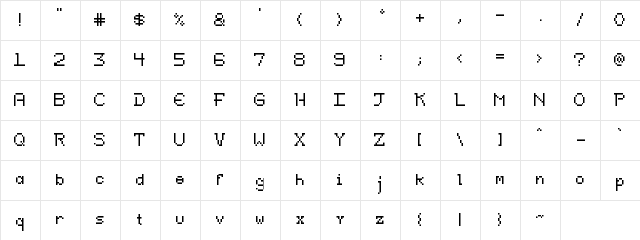
Kelunia Standard Regular
| Designer | StarRaven |
Design Context for Kelunia Standard Typeface
Kelunia Standard takes a measured approach to typography — its balanced proportions and neutral character make it a reliable workhorse for both digital and print work.